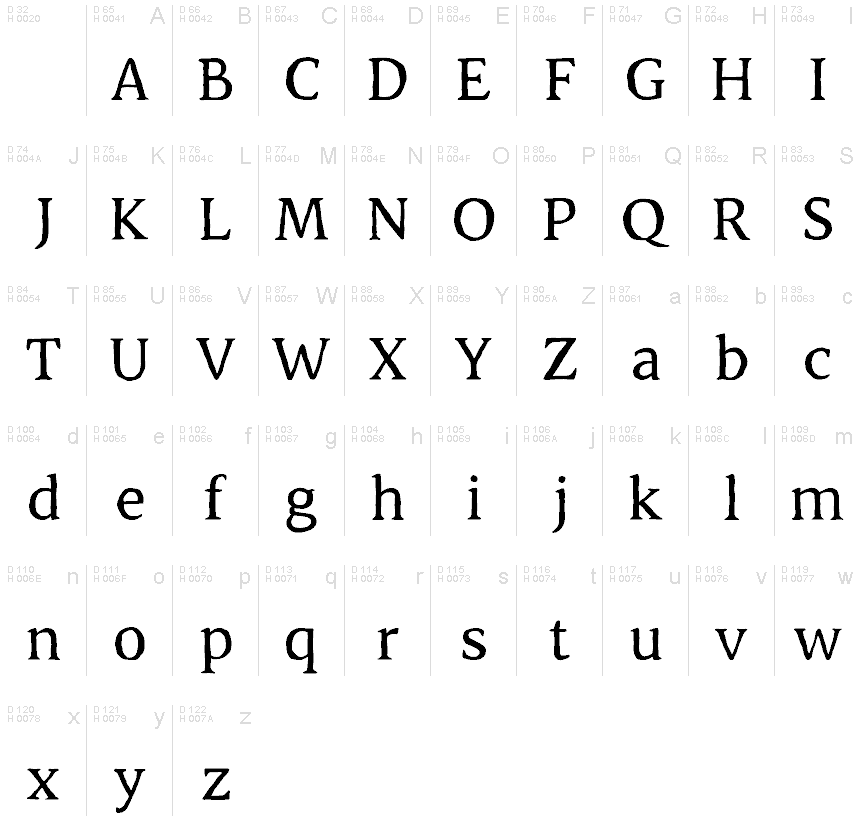
MalveryFree-Regular
Malvery font is a free eroded serif font by Craft Supply Co. A vintage-inspired typeface, it flaunts elegance and sophistication in its letter designs which of course match tremendously when presented together within any text. Classic yet authentic, Malvery evokes an aged effect with worn-out appearances that could add character to your own designs when used.
Think about headlines for magazines and newspapers, book covers (especially for old classics), business cards, stationery items, fashion ads or publications, websites and apps for antique stores or other similar small businesses. Further use cases are logos or labels created for food packaging and branding work in general.